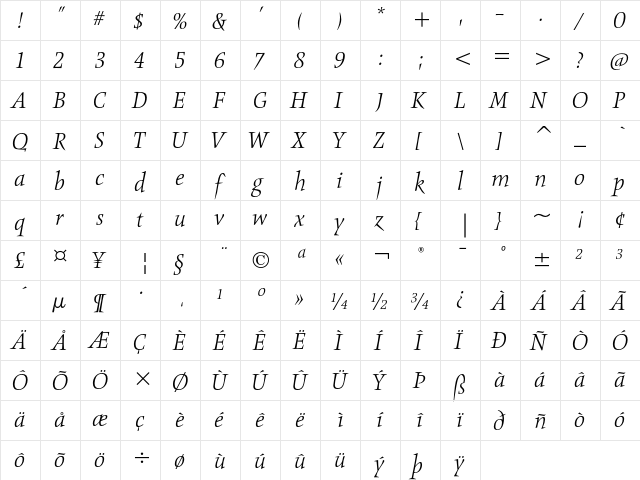
Obelisk ITC Light Italic Font Preview
Design Context for Obelisk ITC Typeface
Obelisk ITC offers clean, dependable letterforms without strong stylistic allegiance, making it a practical choice for designers who need flexibility. The slanted form adds forward momentum and visual energy. Its slender proportions lend an understated elegance to any composition.
Pro Tip: Try Obelisk ITC for annotation and caption copy alongside an upright companion — the contrast in angle creates a dynamic but ordered typographic system.